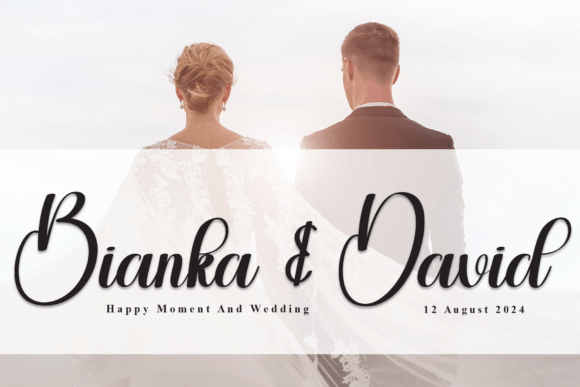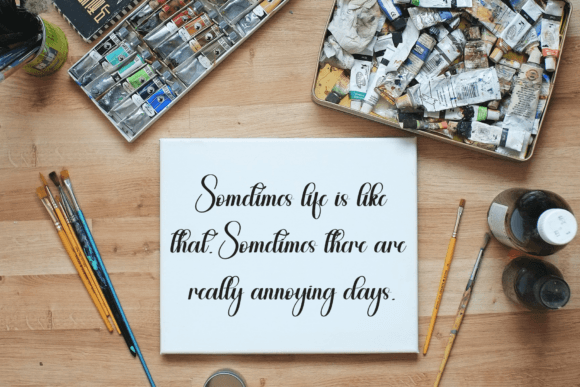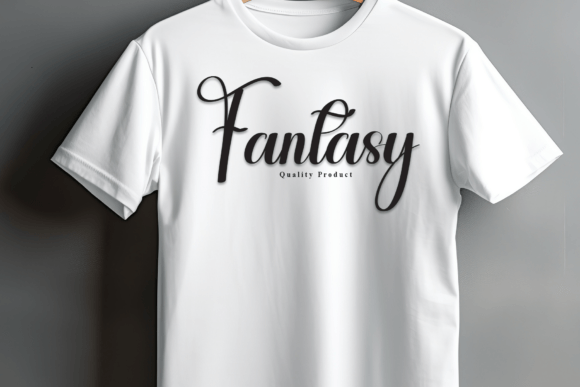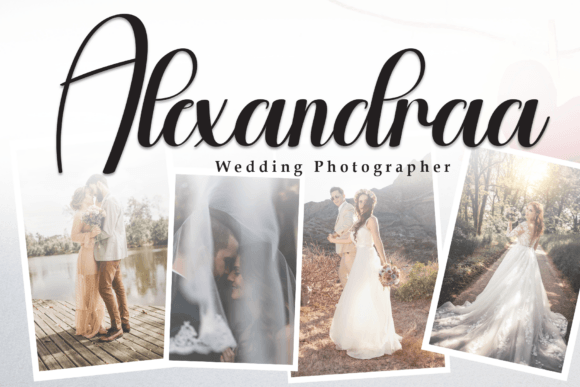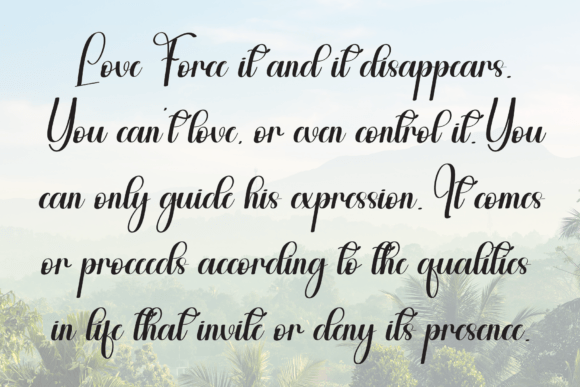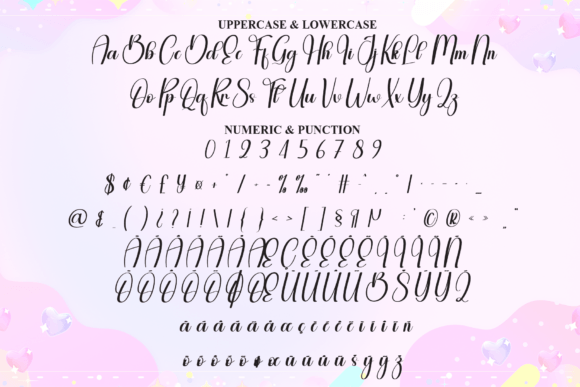
Introducing Charmie Font: The Perfect Handwritten Touch for Your Designs
Are you looking for a font that adds a personal and warm touch to your designs? Look no further than Charmie Font! This lovely handwritten font is designed to bring a friendly and creative feel to any project, making it perfect for invitations, notes, and other applications where a touch of charm is desired.
The Characteristics of Charmie Font
Charmie Font is a beautifully crafted handwritten font that boasts flowing letters and a warm, personal feel. Its unique characteristics make it stand out from other fonts, and its versatility ensures that it can be used in a wide range of design applications. Here are some of the key features that make Charmie Font so special:
- Handwritten style: Charmie Font is a genuine handwritten font, created to mimic the natural flow and imperfections of handwriting. This gives it a personal and relatable feel that is perfect for designs that need a human touch.
- Flowing letters: The letters in Charmie Font are designed to flow smoothly into one another, creating a sense of movement and fluidity. This makes it ideal for use in invitations, titles, and other applications where a sense of elegance and sophistication is desired.
- Warm and friendly feel: Charmie Font has a warm and friendly feel that makes it perfect for designs that need to convey a sense of approachability and personality. Whether you’re creating invitations, greeting cards, or social media graphics, Charmie Font is sure to add a touch of warmth and charm.
Uses for Charmie Font
Charmie Font is a versatile font that can be used in a wide range of design applications. Here are some ideas to get you started:
- Invitations: Charmie Font is perfect for creating beautiful and elegant invitations for weddings, birthday parties, and other special occasions.
- Notes and cards: Add a personal touch to your notes and cards with Charmie Font. Its warm and friendly feel makes it perfect for greeting cards, thank-you notes, and other personal correspondence.
- Social media graphics: Charmie Font can add a touch of personality and charm to your social media graphics, making them stand out from the crowd and engaging your audience.
- Branding and packaging: If you’re looking for a font that can add a touch of warmth and personality to your brand, Charmie Font is a great choice. Its unique and elegant feel makes it perfect for use in branding and packaging design.
Why Designers and Crafters Love Charmie Font
Charmie Font has quickly become a favorite among designers and crafters, and it’s easy to see why. Here are some reasons why:
- Easy to read: Despite its handwritten style, Charmie Font is surprisingly easy to read, making it perfect for use in body text and other applications where readability is important.
- Highly versatile: Charmie Font can be used in a wide range of design applications, from invitations and greeting cards to social media graphics and branding.
- Unique and elegant: Charmie Font has a unique and elegant feel that sets it apart from other fonts. Its flowing letters and warm, personal feel make it perfect for designs that need a touch of sophistication and charm.
If you’re looking for a font that can add a touch of warmth and personality to your designs, look no further than Charmie Font. Its unique and elegant feel, combined with its versatility and readability, make it a great choice for designers and crafters. Whether you’re creating invitations, notes, or social media graphics, Charmie Font is sure to bring a touch of charm and sophistication to your designs.